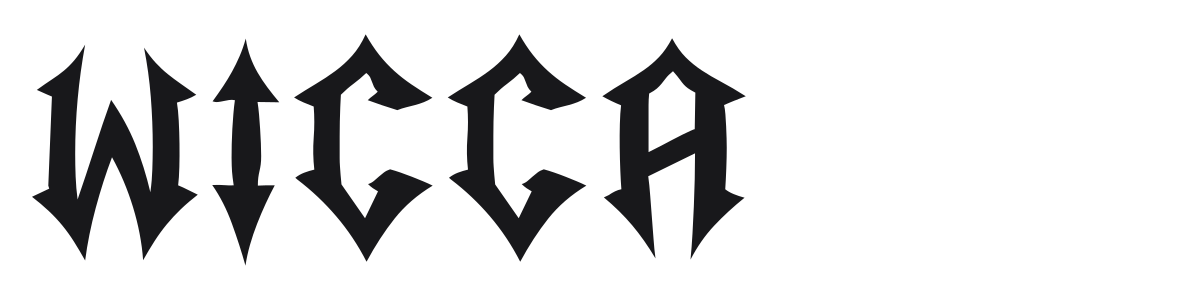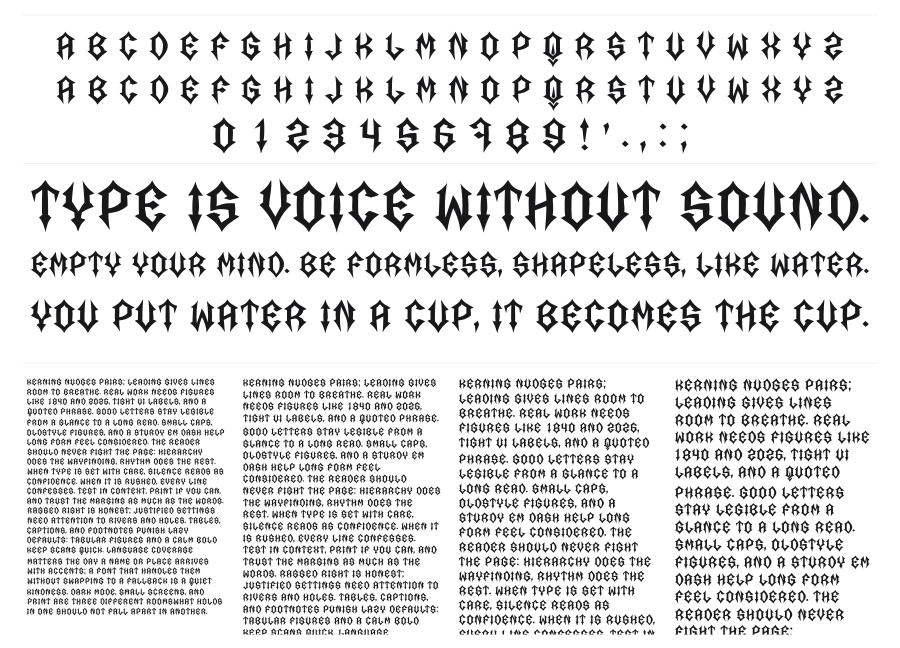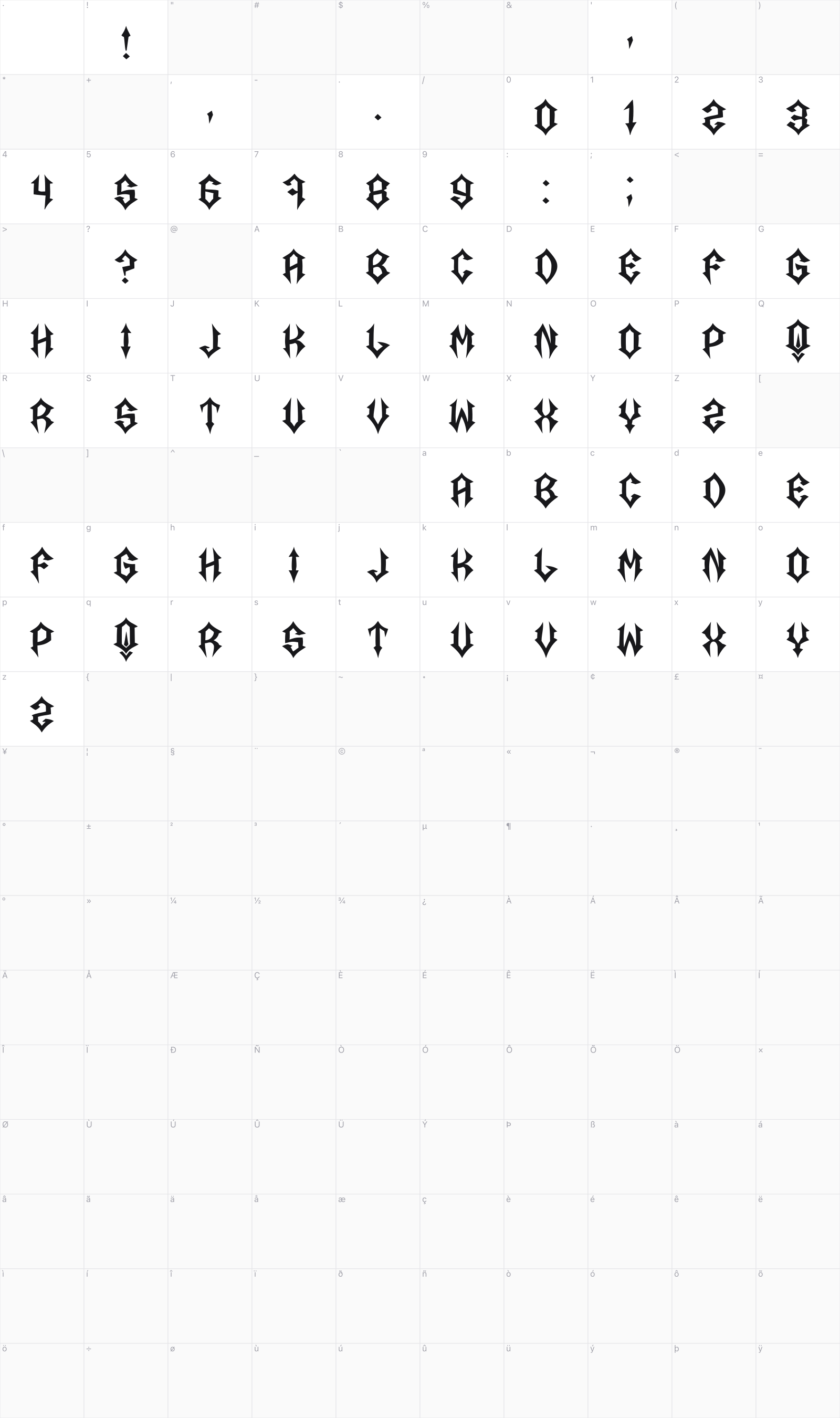
Wicca
Wicca is a bold gothic blackletter with sharp, spiked terminals and aggressive angular construction. It draws from medieval script traditions but leans hard into occult and heavy-metal visual territory. Strong at large sizes for logos, album art, posters, and anything that needs a dark, ceremonial edge.